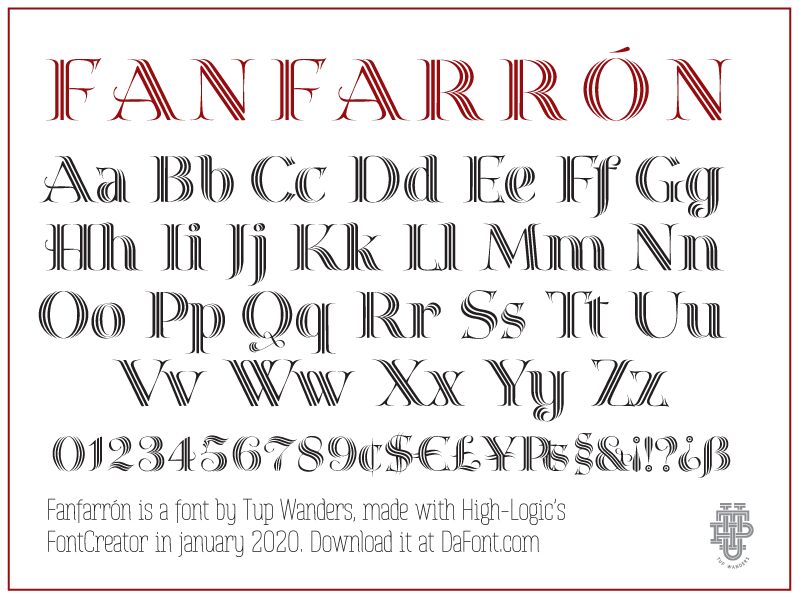
Fanfarrón font by Tup Wanders is a retro display font that's as bold as it is luxurious. Vintage elegance and nostalgic charm are interwoven through every glyph, with decorative accents adding extra flair. It has an ornate and sophisticated style ideal for refined projects that need a designer’s special touch.
Use this free display font in book covers, poster designs, postcards, branding, logos, product packaging, invitations to special events such as weddings or galas; even businesses like restaurants will find Fanfarrón useful on their menus or signage.